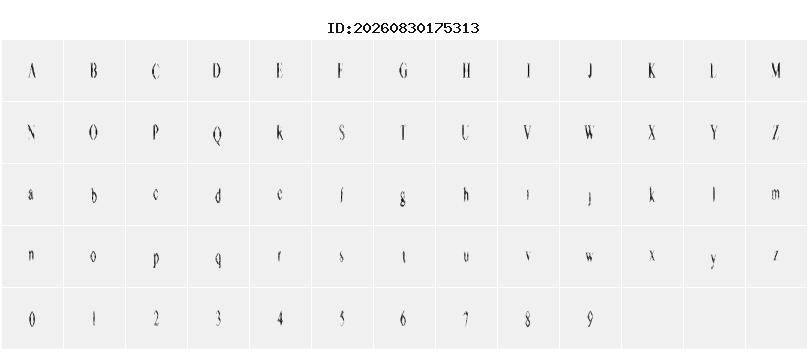
Terrorism Bytes Preview
• Font Name: Terrorism Bytes
• Font Style: WTC forever
• Full Font Name: Terrorism Bytes
• Version: In memory of those lost, September 11, 2001
• PostScript Name: Terrorism Bytes
• Character Count: 113
• Designer: electriK MONk a.k.a. Keith S. Parent
About Terrorism Bytes.ttf
Terrorism Bytes.ttf is a modern, elegant sans-serif font designed for ultimate readability and visual harmony. Perfect for branding, headlines, web design, and print materials.